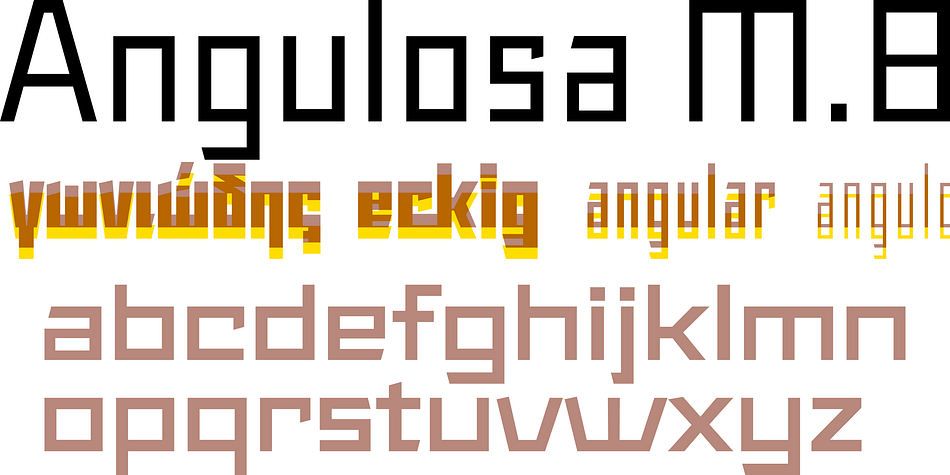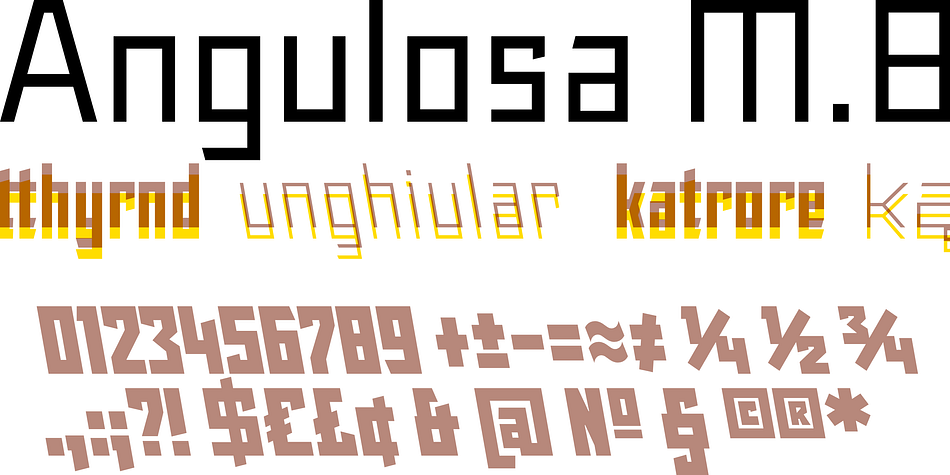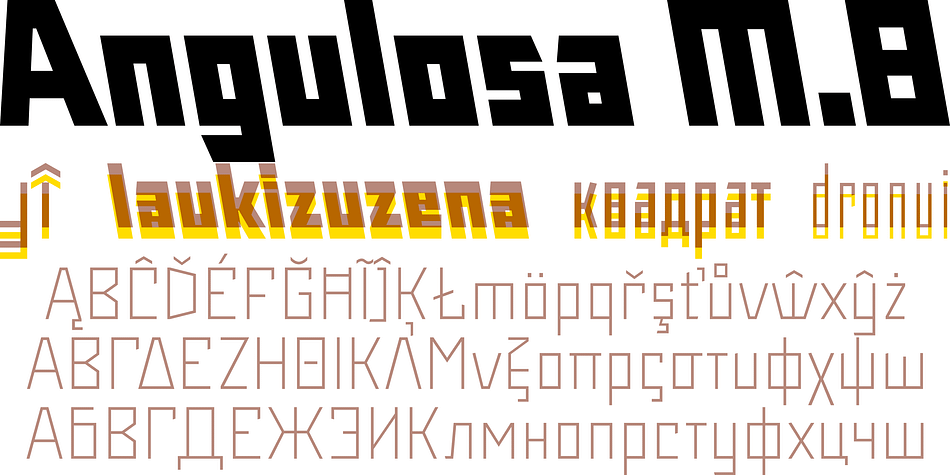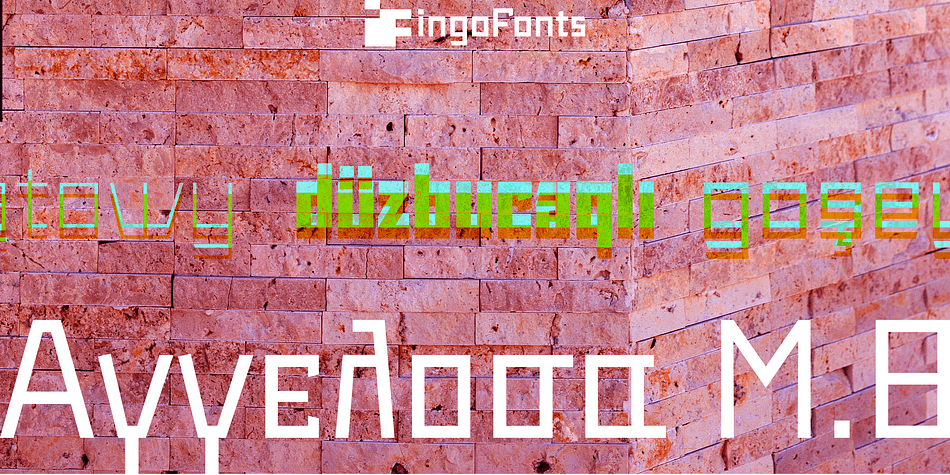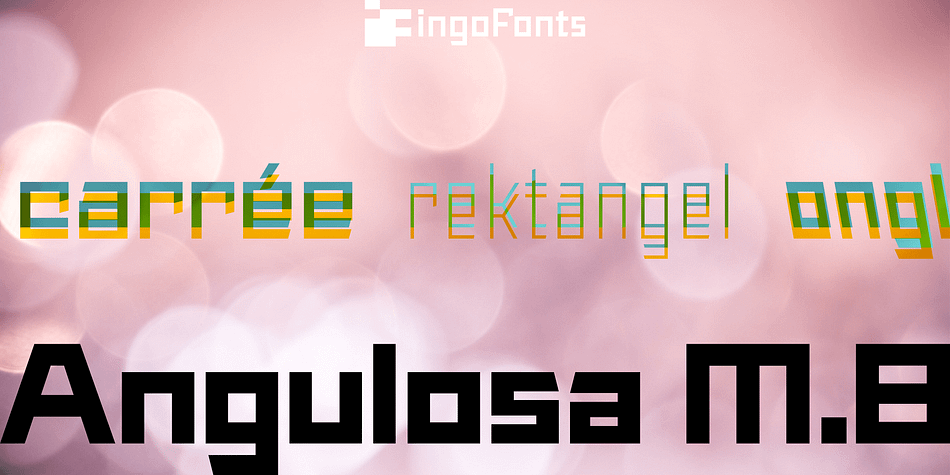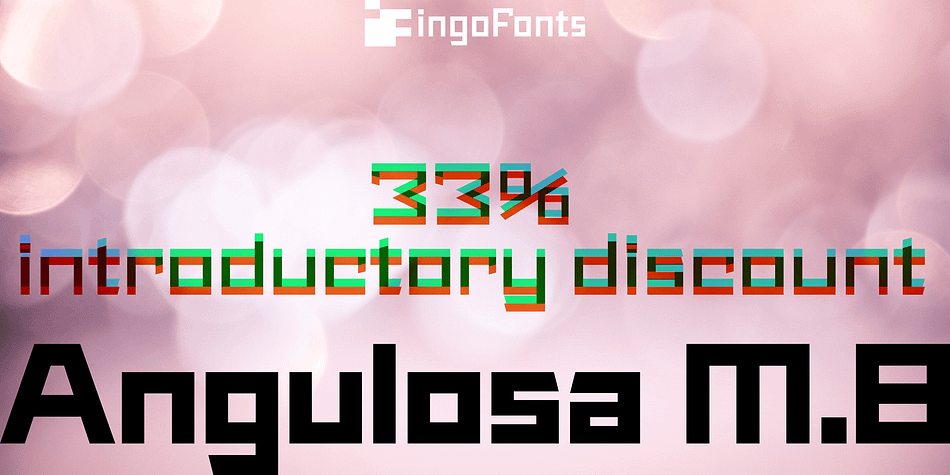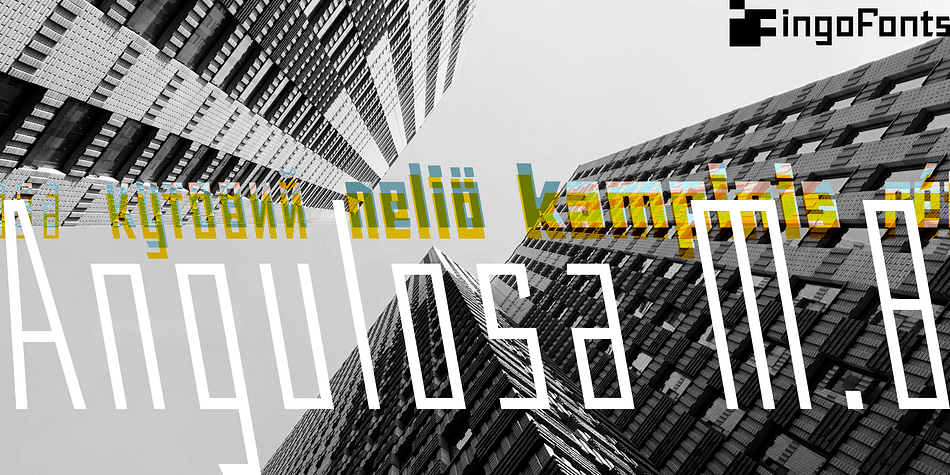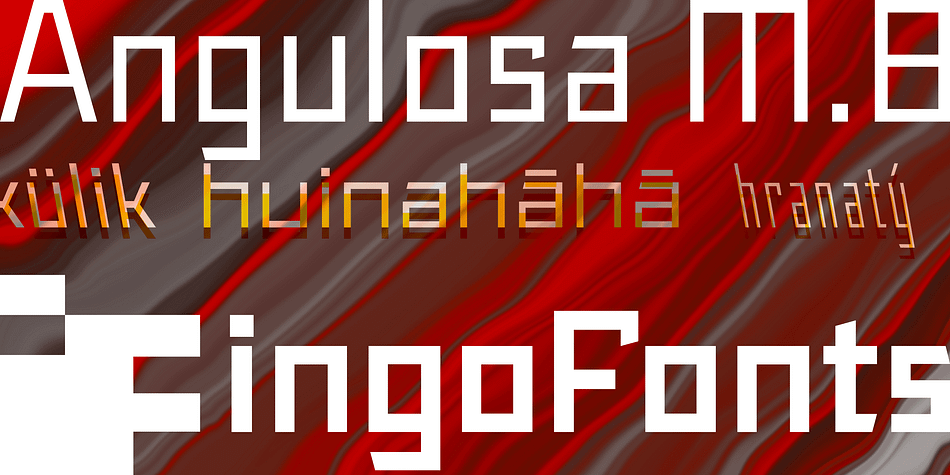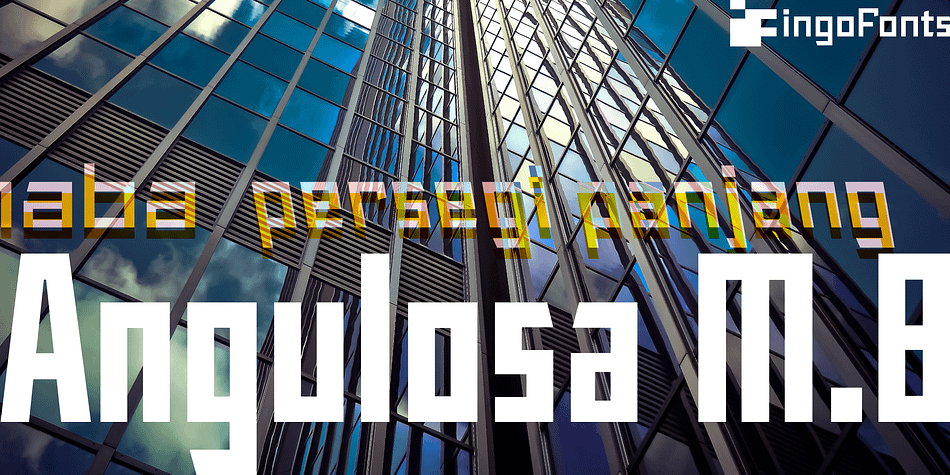
Angulosa M.8
Designed by Ingo Zimmerman, Angulosa M.8 is a display sans font family. This typeface has twenty-five styles and was published by ingoFonts.
At first glance, »Angulosa M.8« is one of those fonts that a technician or engineer would probably draw. And yet it differs fundamentally from typefaces constructed in this way.
The right angle forms the basic element of the »Angulosa M.8«, but that’s about it with the pure mathematics. Serif-like upstrokes and downstrokes on some letters improve readability, and carefully used slants makes the appearance a little friendlier. The proportions are not based on any mathematical principle, but are derived from freehand writing of the letterforms with a broad quill.
In terms of style, »Angulosa M.8« belongs most closely to the modernist, constructivist typeface attempts, such as those made at the Bauhaus in the 1930s.
The styles of »Angulosa M.8« range from “Condensed” to “Expanded”, from “Light” to “Black”, plus the respective oblique form, which in this font is slanted to the left.
All variants can be adjusted continuously in the variable font: the font width ranges from 50 to 150, font weight from 300 to 900, upright [0] and italic [1].
The »Angulosa M.8« supports all European languages including Eastern and Central European, Turkish, Greek and Cyrillic.